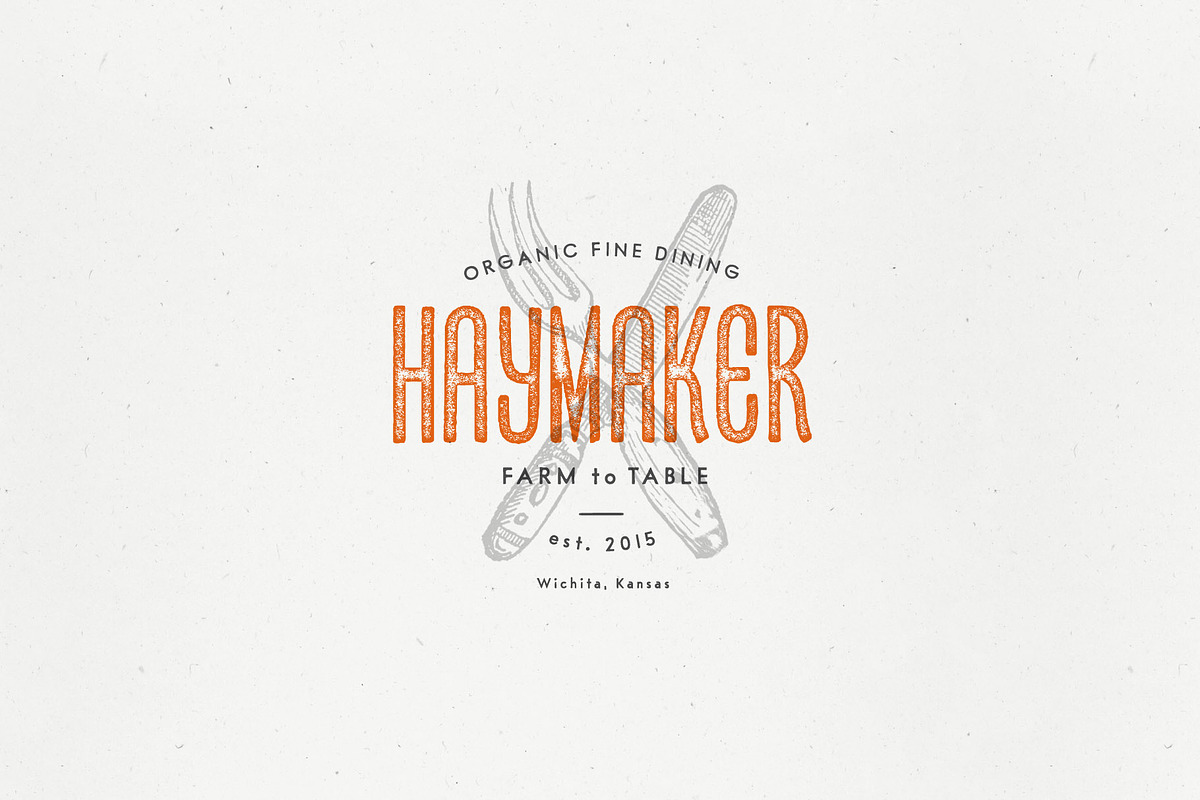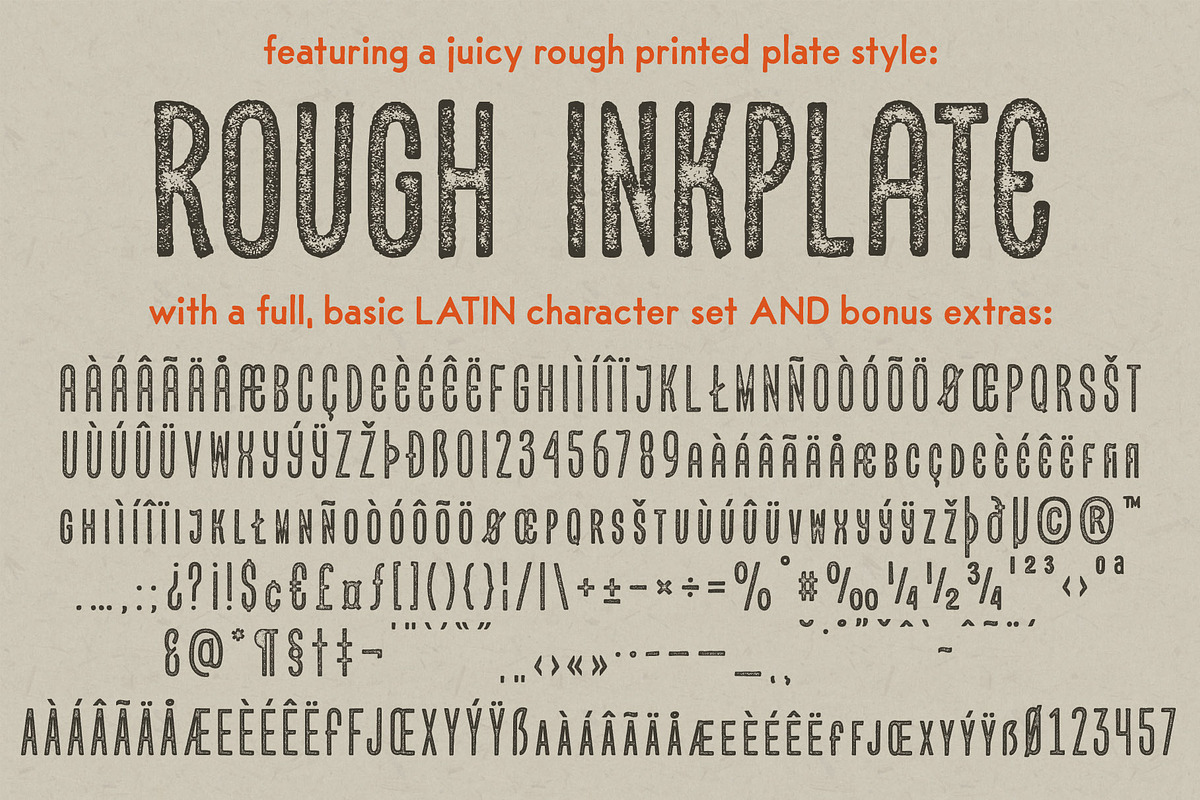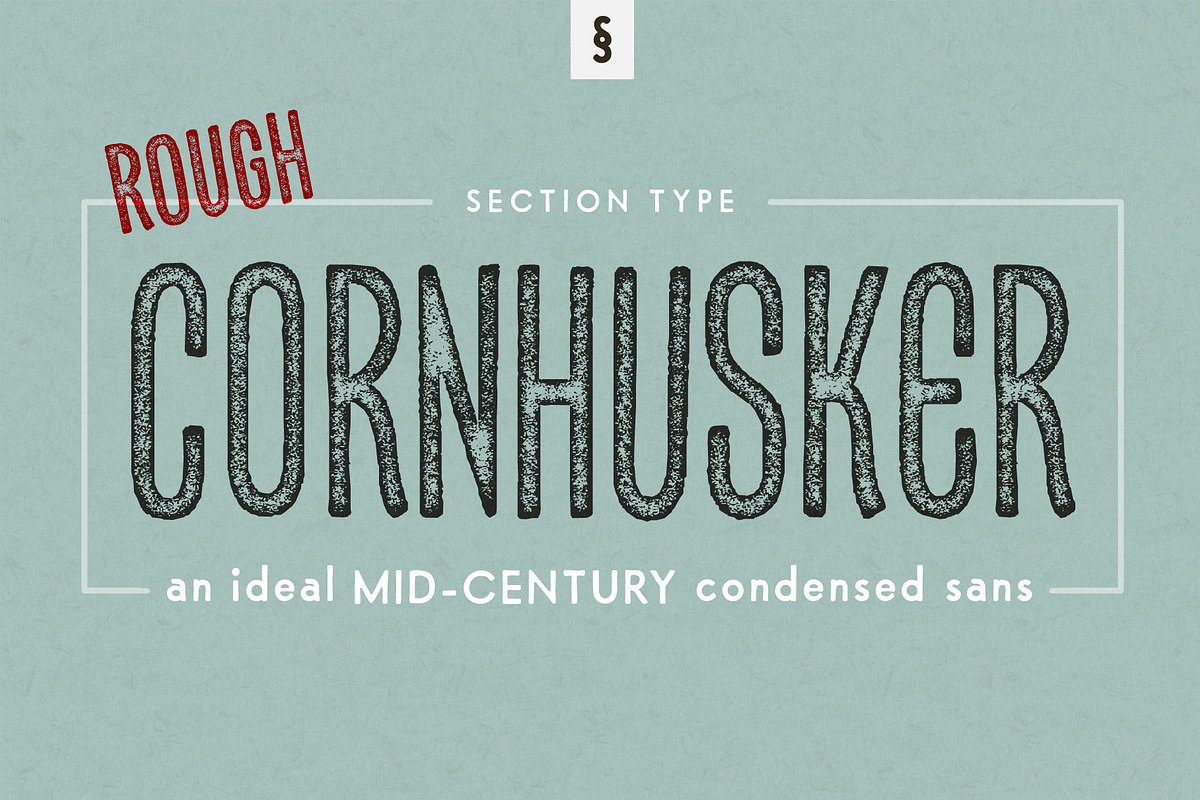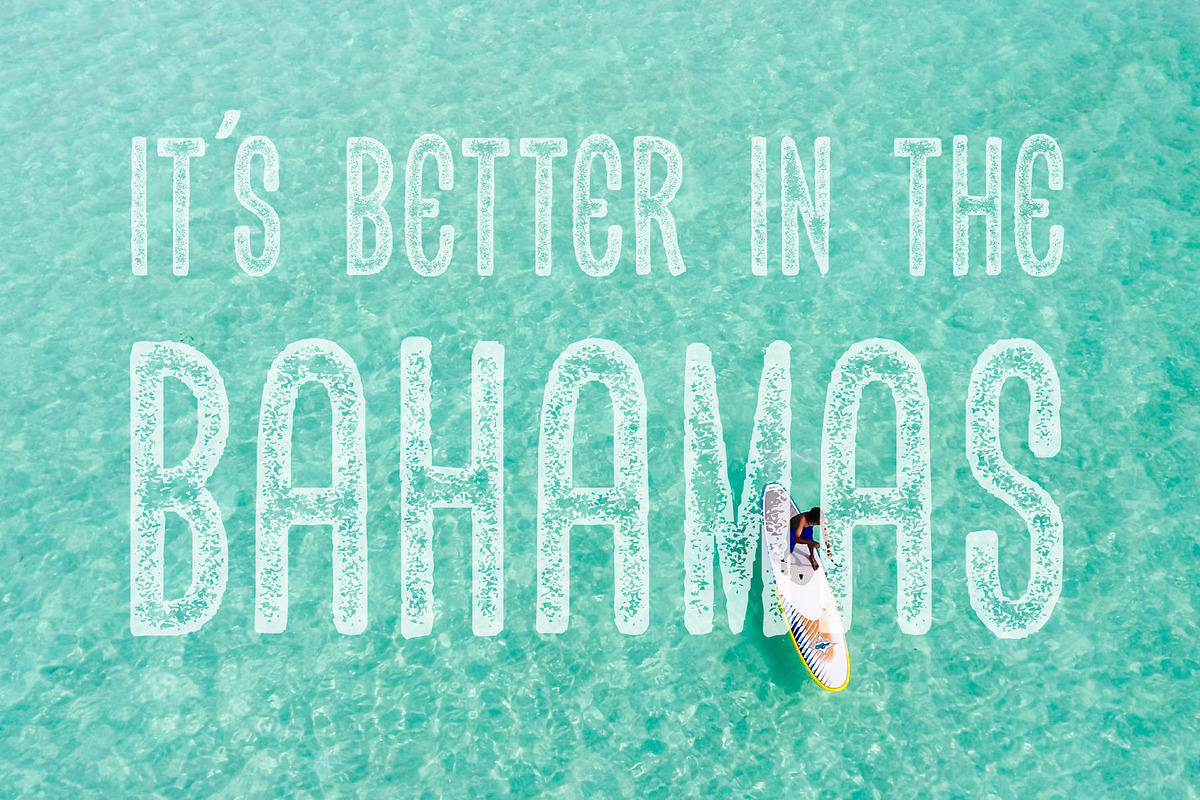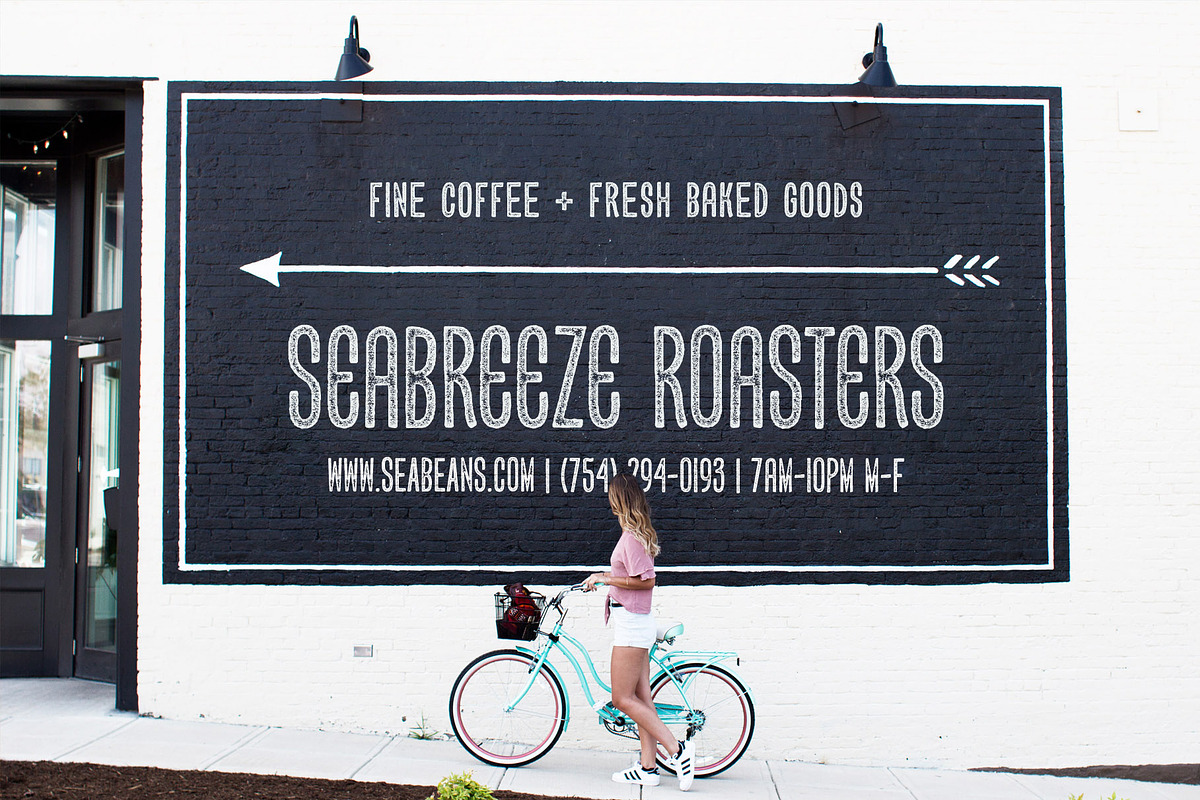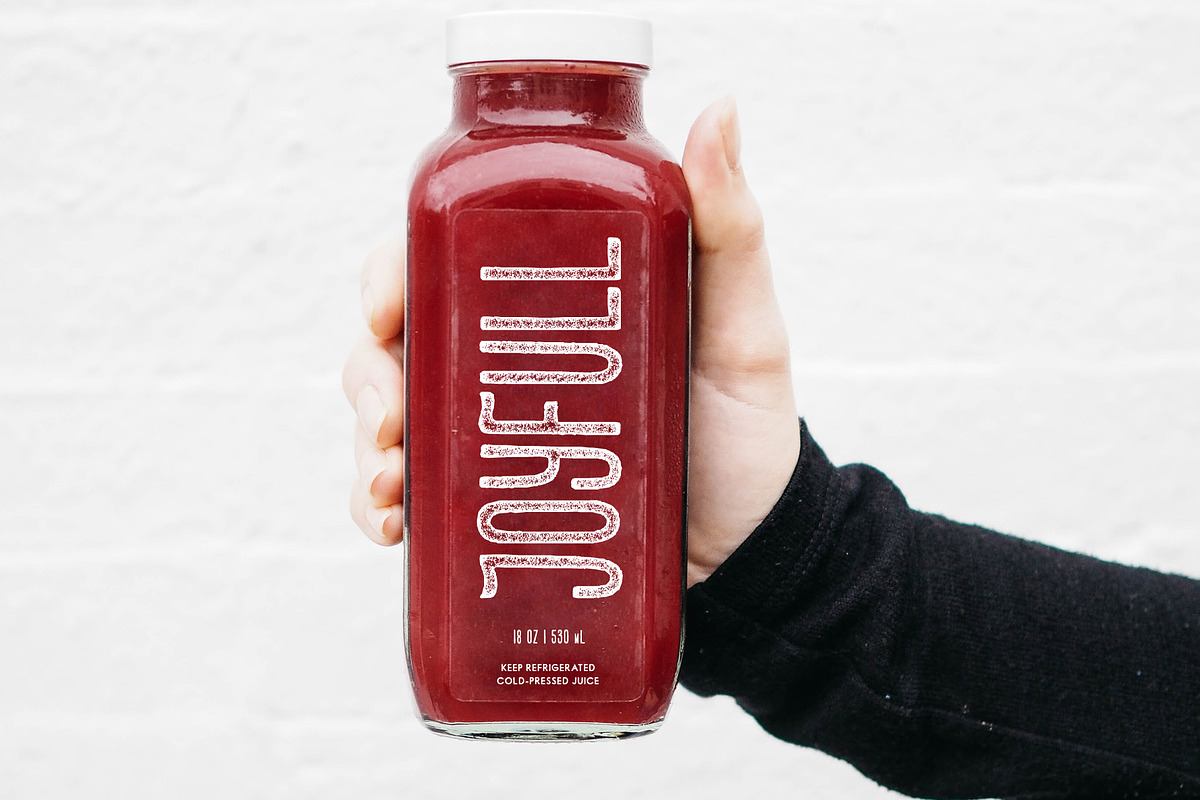
Cornhusker Rough | Condensed Font
Well lookee here: an authentically distressed "rough" version of our best-selling Cornhusker font!
Standing tall as an Illinois cornfield in September, Cornhusker Rough is a faux-printed, condensed sans designed by a champion cornhusker. Inspired by 1940s Midwestern signage, it's warm & inky characters are perfectly at home in logos, beverage bottles and food packaging, restaurant menus, travel advertisements, websites, stationery, handmade product packaging and so much more. If you're looking for a hand-crafted typeface with punch (who can fit into tight spaces!) then Cornhusker Rough is the font for you.
This inspired revival excels in both retro & modern designs. Cornhusker Rough includes capital letters, small caps, and alternate cuts (with diacritics) of A, E, F, J, X, Y, ᴀ, ᴇ, ғ, ᴊ, x, ʏ, 0, 1, 2, 3, 4, 5, 7 and a sharp German double s in both cap and smallcap.
Cornhusker Regular features a highly detailed, realistic inkplate texture. This font may render slowly in older applications.
Alternate cuts for select uppercase and smallcap letters (located in stylistic sets)